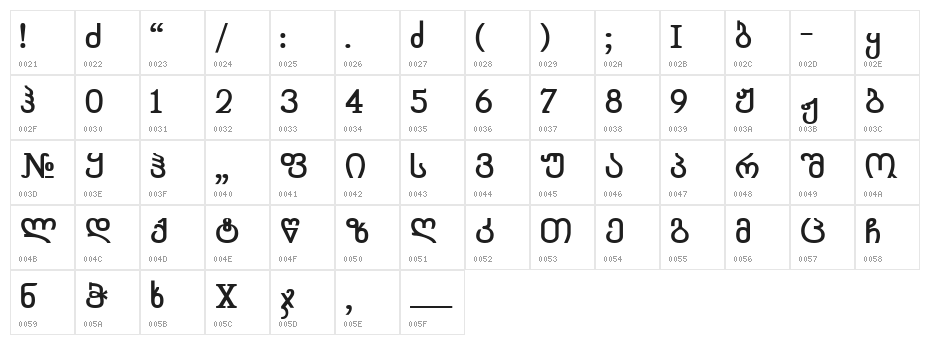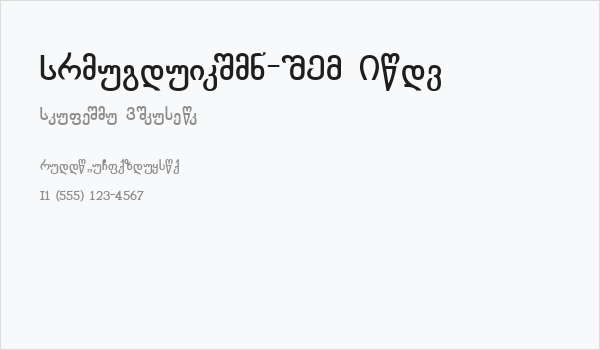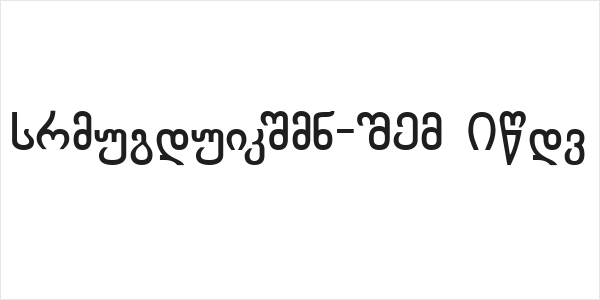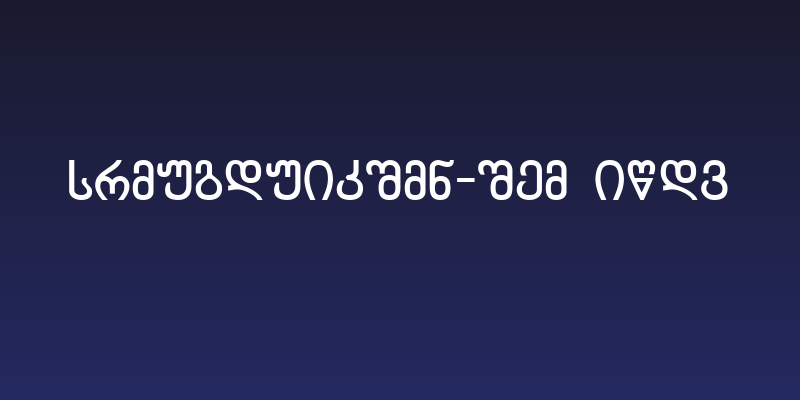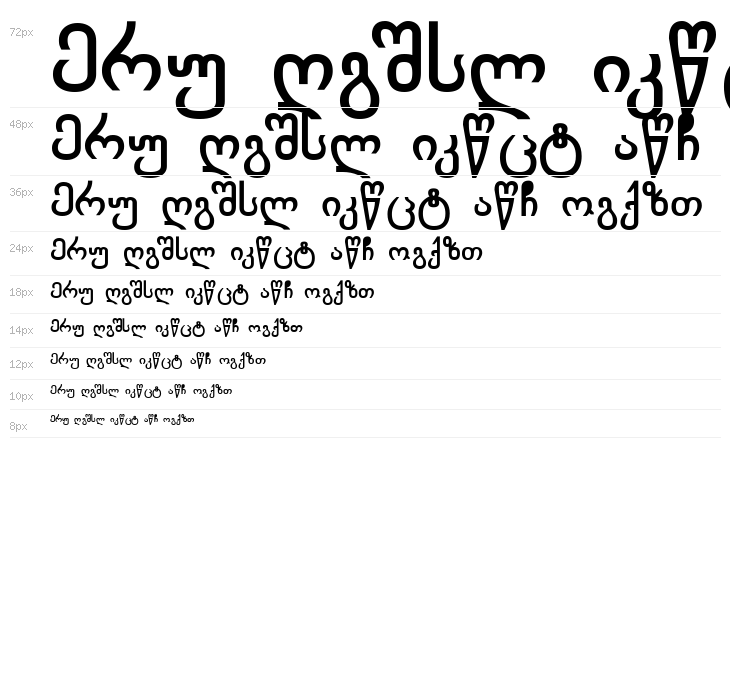
Chveulebrivy-ITV Bold Font
Chveulebrivy-ITV Bold Description
This font features a bold and expressive style with a unique blend of curves and sharp angles, creating a dynamic and eye-catching appearance. The characters exhibit a strong presence, making them suitable for impactful designs. The numerals are consistent with the overall style, maintaining the bold and rounded characteristics. Special characters are designed with the same attention to detail, ensuring a cohesive look across all elements. The font's boldness and distinctiveness make it ideal for projects that require a strong visual impact.
| Proposed Projects | Ideal for branding, poster design, headlines, and any project requiring a strong visual statement. |